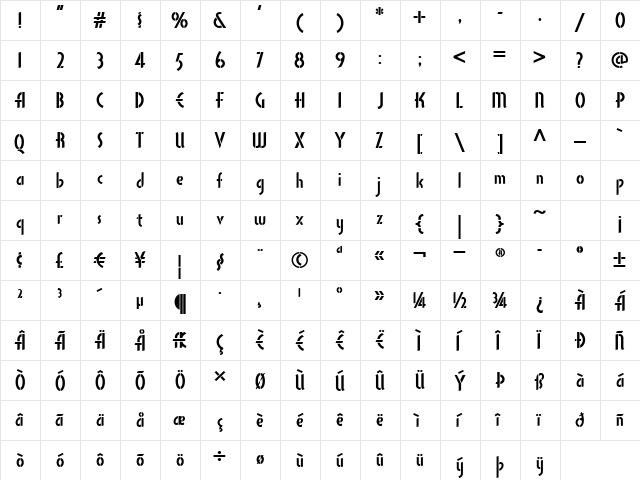
MatthewsModernStencilNF Medium
Design Context for MatthewsModernStencilNF Typeface
MatthewsModernStencilNF has the rough pragmatism of spray-painted stencil signage, adding a raw, street-level authenticity to designs.
A strong choice for packaging that needs edge, warehouse aesthetics, and rough-and-ready visual identities.
Pro Tip: Use MatthewsModernStencilNF at large sizes on packaging, posters, or apparel where the stencil cutaways read clearly. Avoid small sizes where those gaps become visual noise.